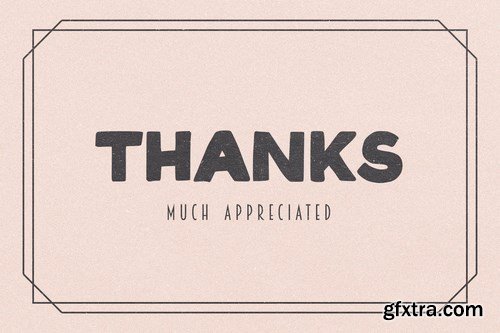
Lerida - The Vintage Sans Font and vintage character! it’s perfect for logos, name card, magazine layouts, invitations, headers, or even large-scale artwork.